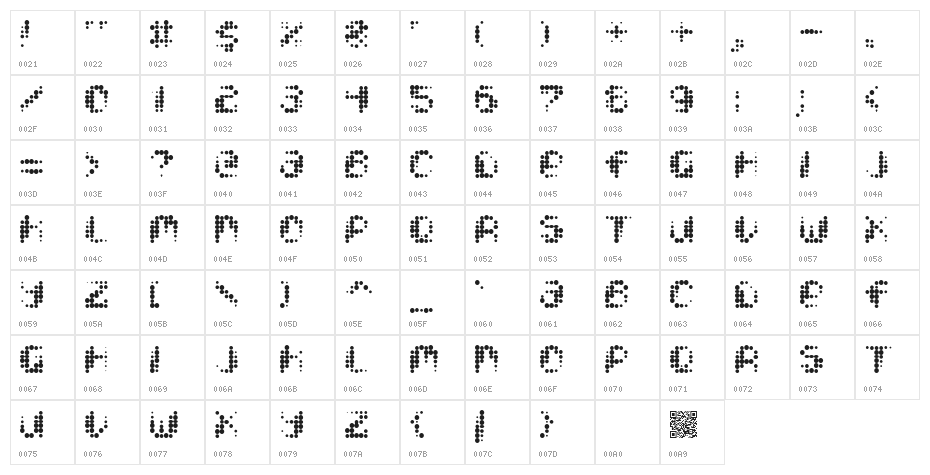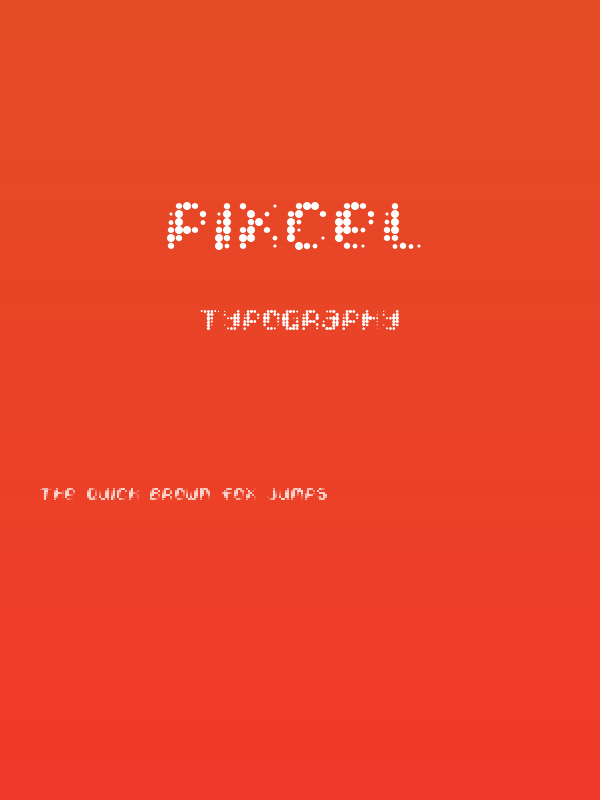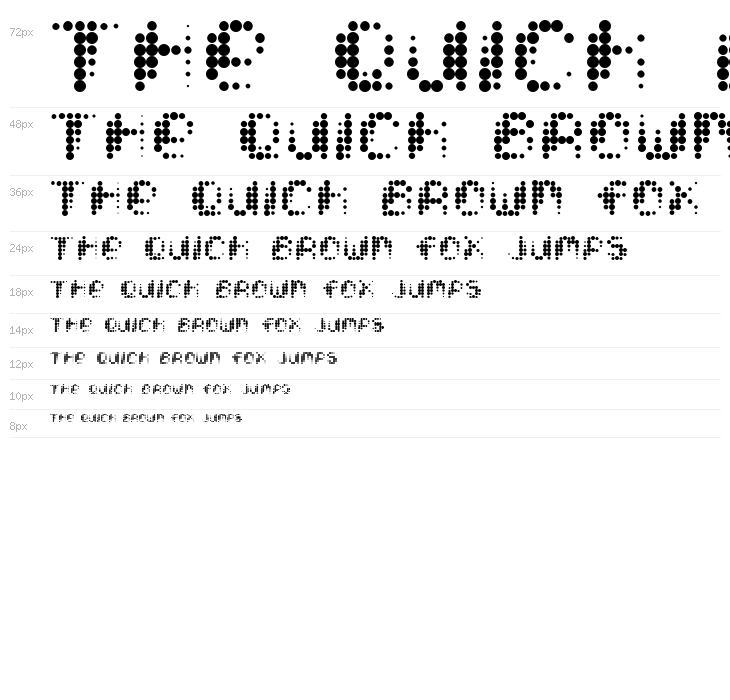
Pixcel Font
Pixcel Description
This font features a unique dot matrix style, where each character is formed by a series of evenly spaced dots. The design gives it a digital, retro appearance reminiscent of early LED displays or dot matrix printers. The characters are uniformly constructed, maintaining a consistent size and spacing, which enhances readability despite the unconventional design. This font is particularly eye-catching and can add a playful or technological touch to any project. Its geometric precision and uniformity make it suitable for modern and creative applications.
| Proposed Projects | Ideal for digital displays, retro-themed designs, tech branding, and creative posters. |